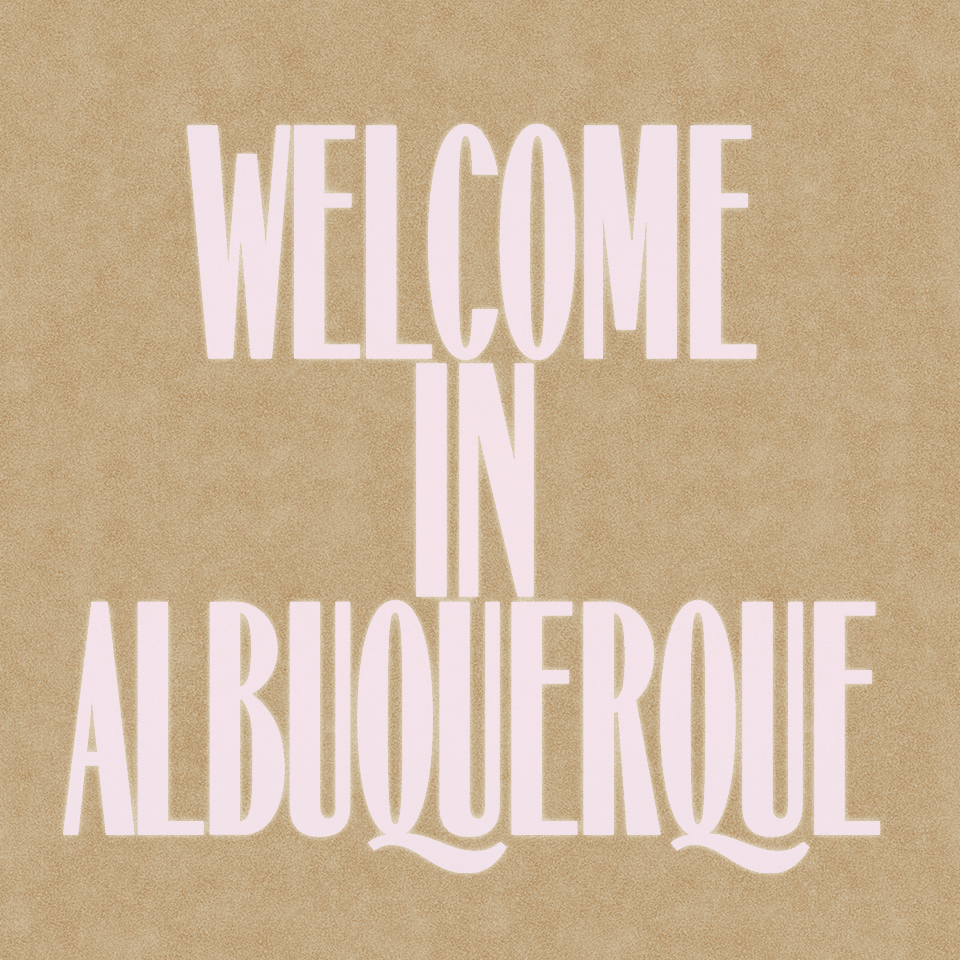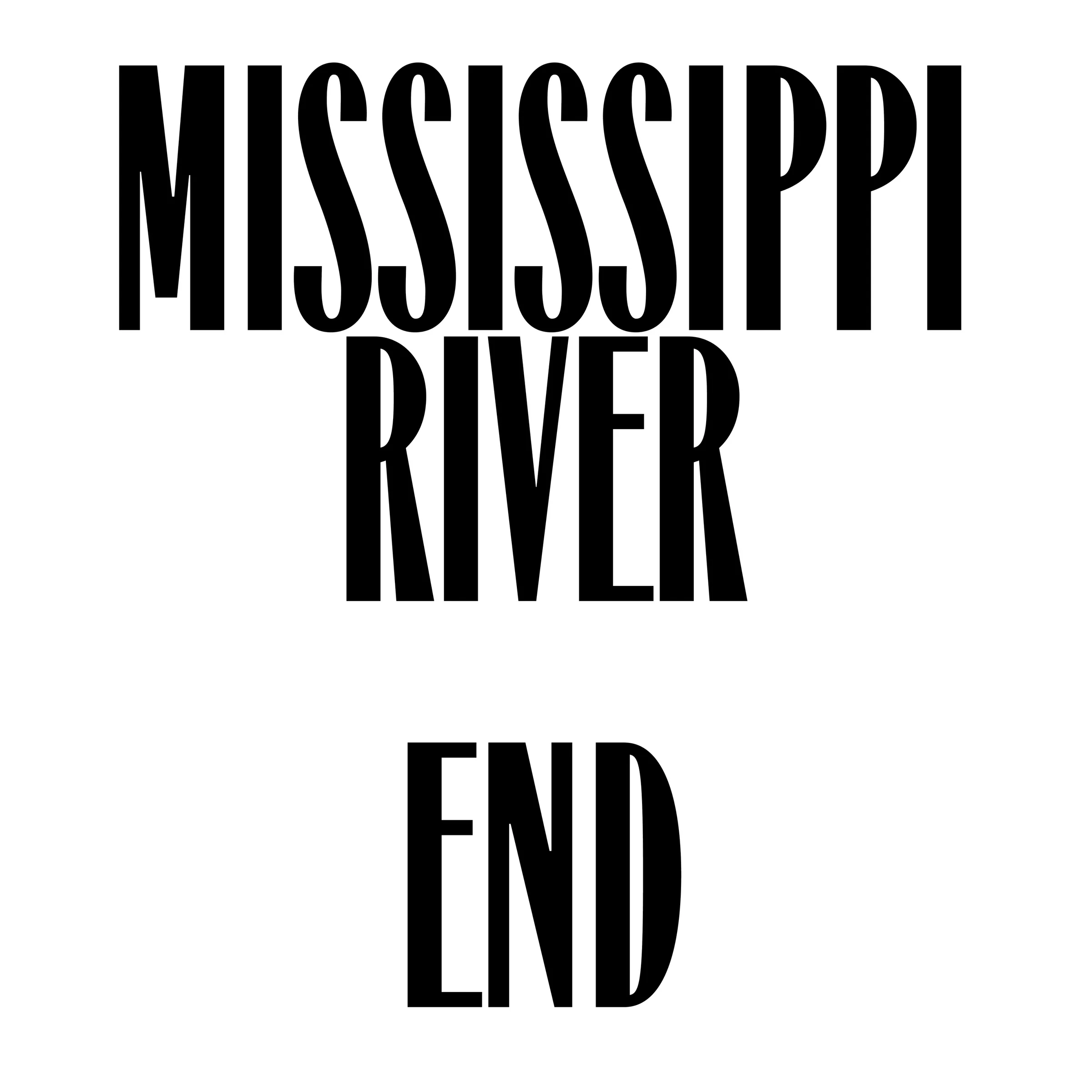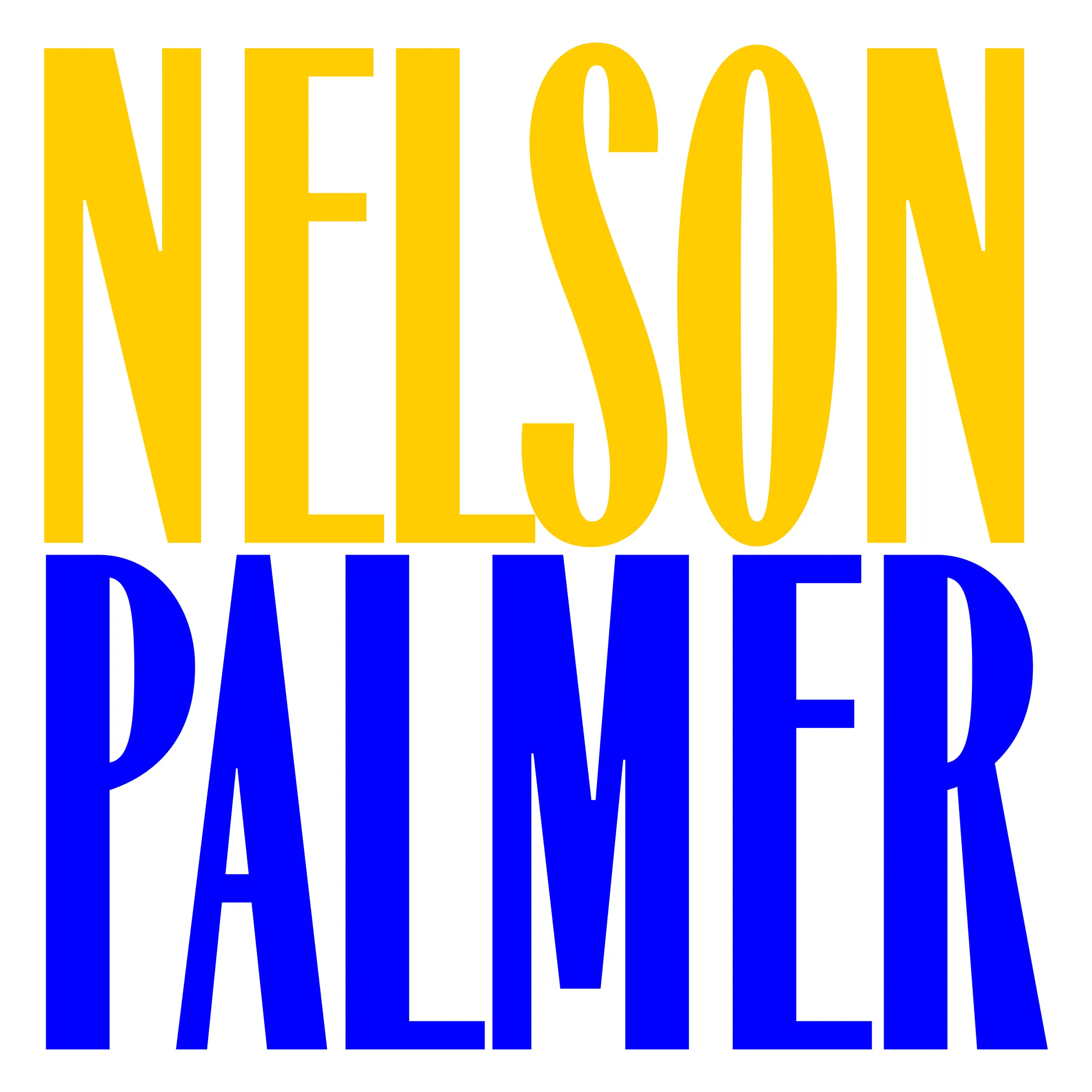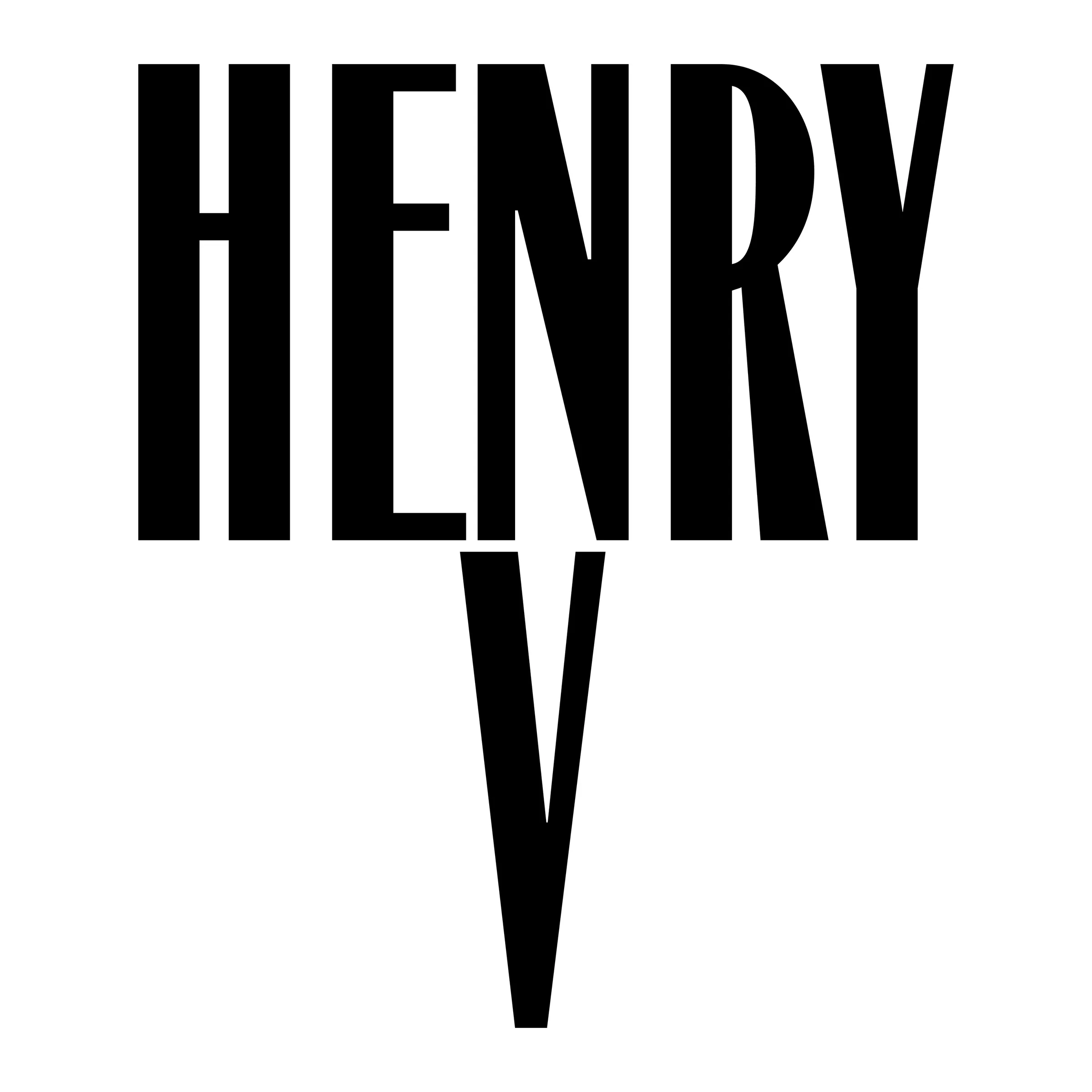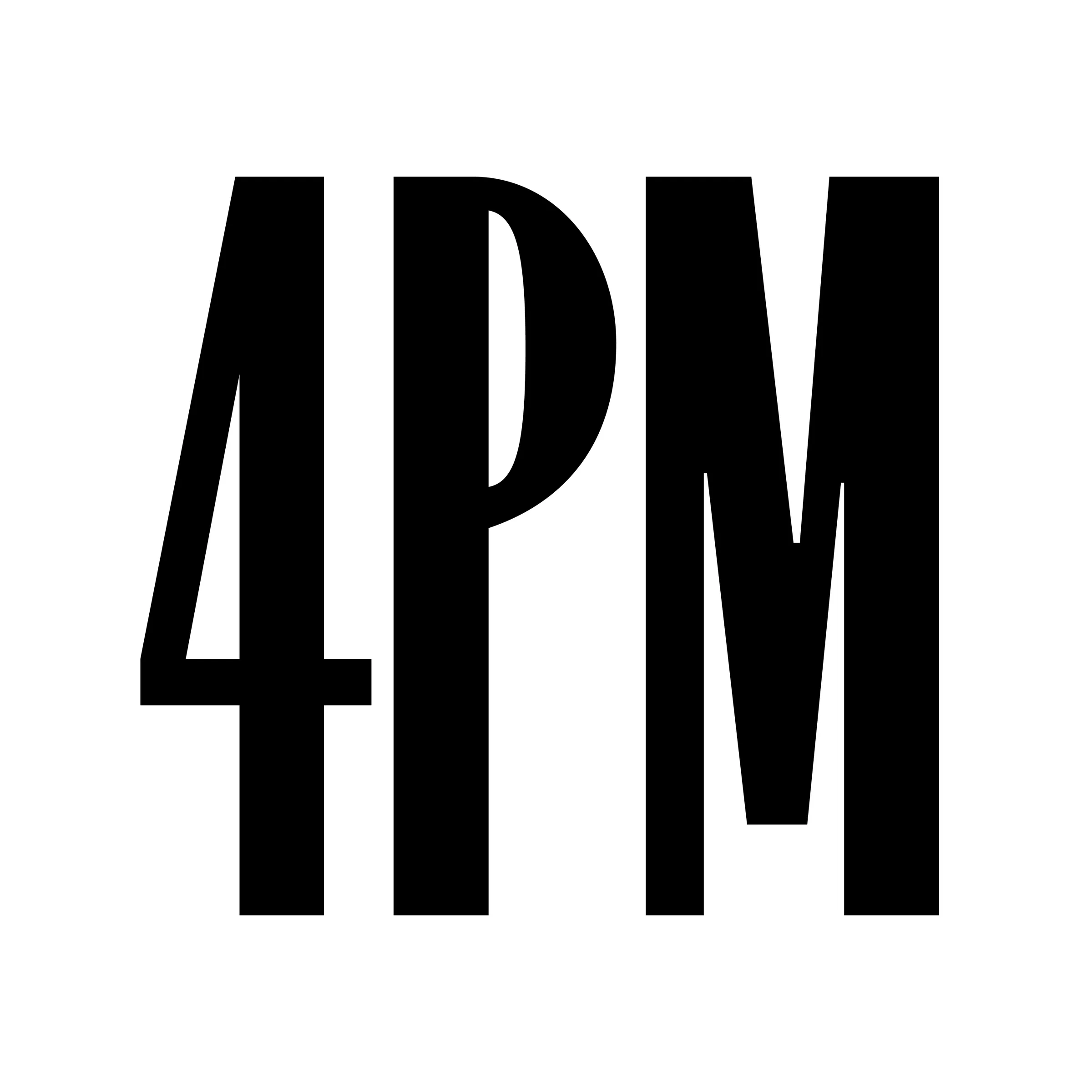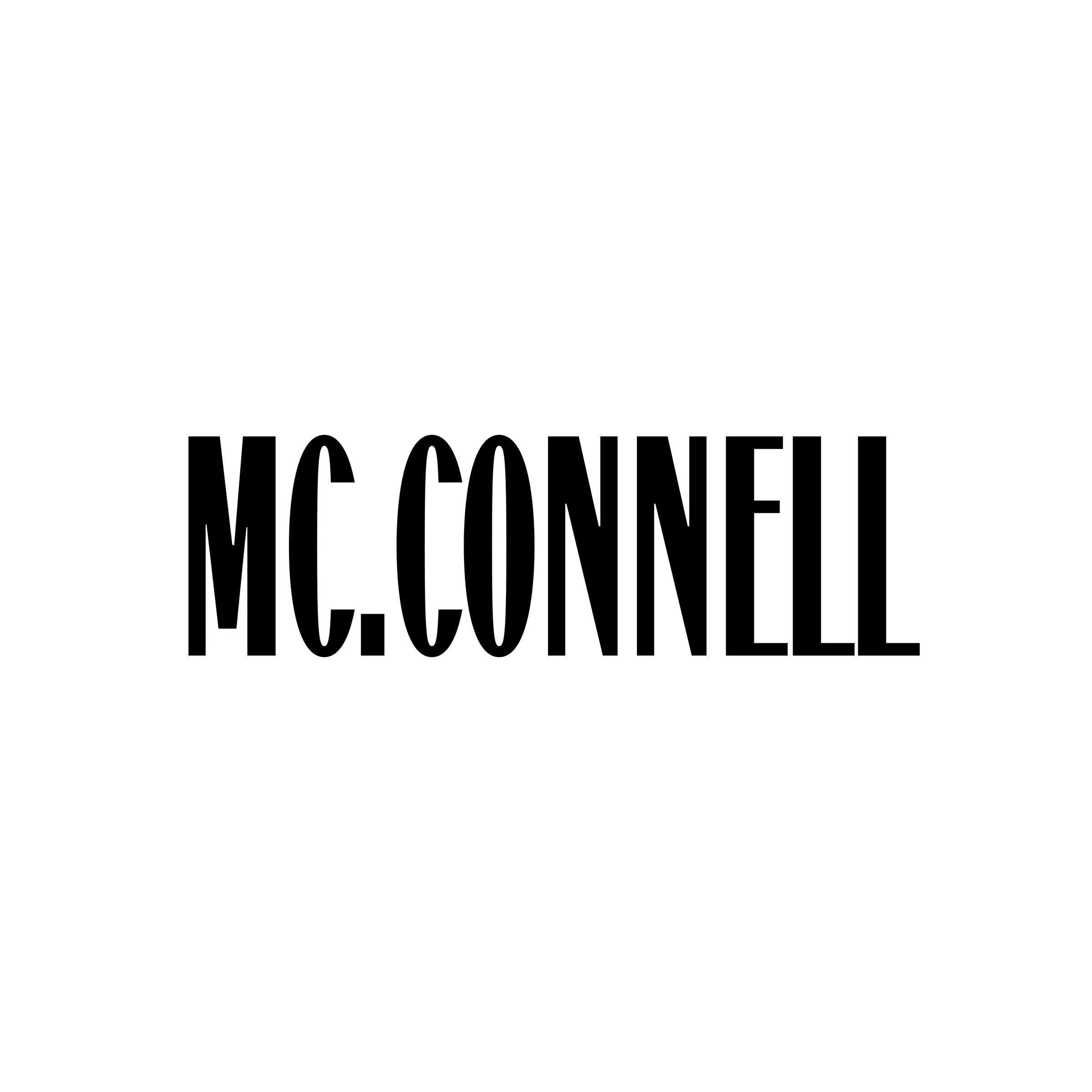
Albuquerque
About Albuquerque
Albuquerque is a 'revival' typeface based on the font named Cyclopéen, distributed by the 'Fonderie G. Peignot & Fils' (later known as Fonderie Deberny & Peignot), with its initial appearances dating back to 1910 in the catalogs of the Parisian foundry. The drawings of Cyclopéen and its cousin Polyphème remain anonymous, likely the work of a collaborator or employee serving as a punch cutter at Fonderie Peignot. Cyclopéen is a highly condensed typeface with a certain contrast in its weight, giving it a rather classic silhouette with many distinctive features and character for its time. It is classified in the ‘Spécimen Général’ of the Fonderie Peignot & Fils under the 'Caractères Modernes' category, alongside other well-known fonts such as Grasset, Cochin, Auriol, Della Robia, and Robur.Albuquerque is a 'digitalized' version of Cyclopéen, trying to be as closed as possible to the source, featuring only initial capitals, as seen in some specimens from Peignot & Fils foundries. The goal is to create a headline typeface, condensed for use in large sizes, with a strong identity derived from the base character. Some elements have been 'revised' for the sake of coherence and digital optimization.